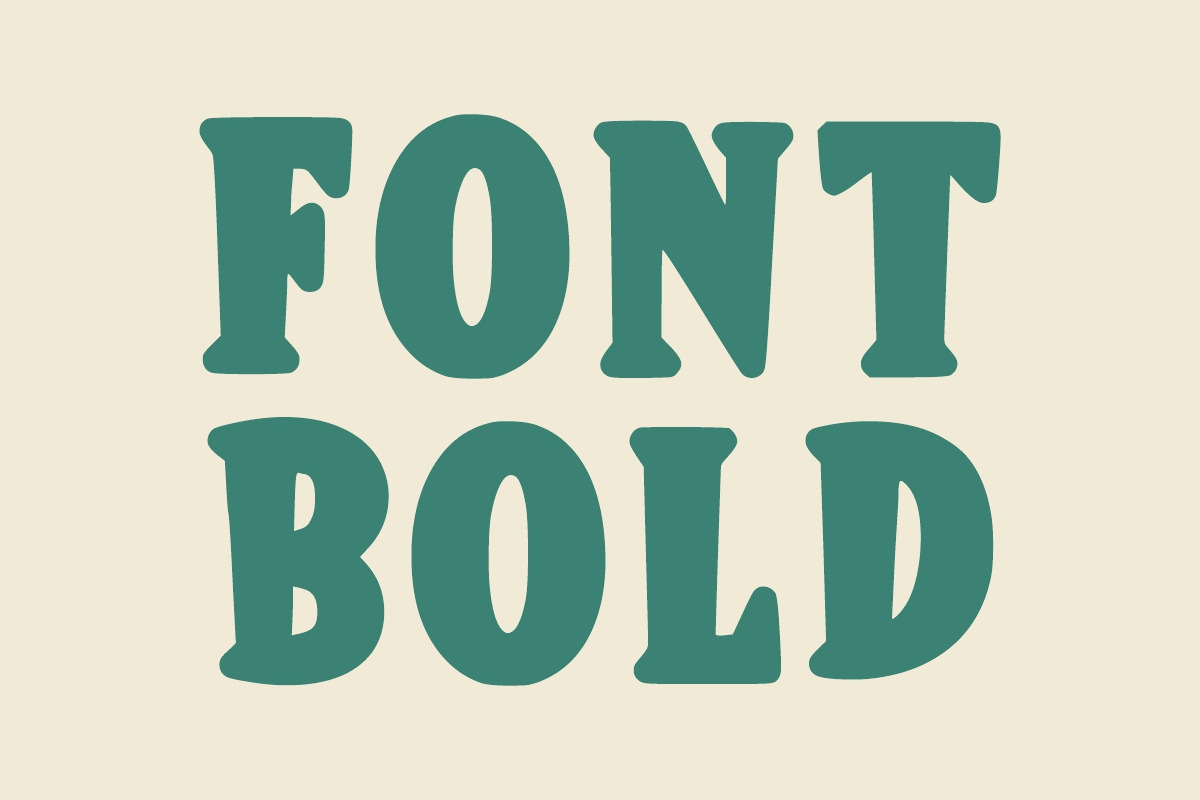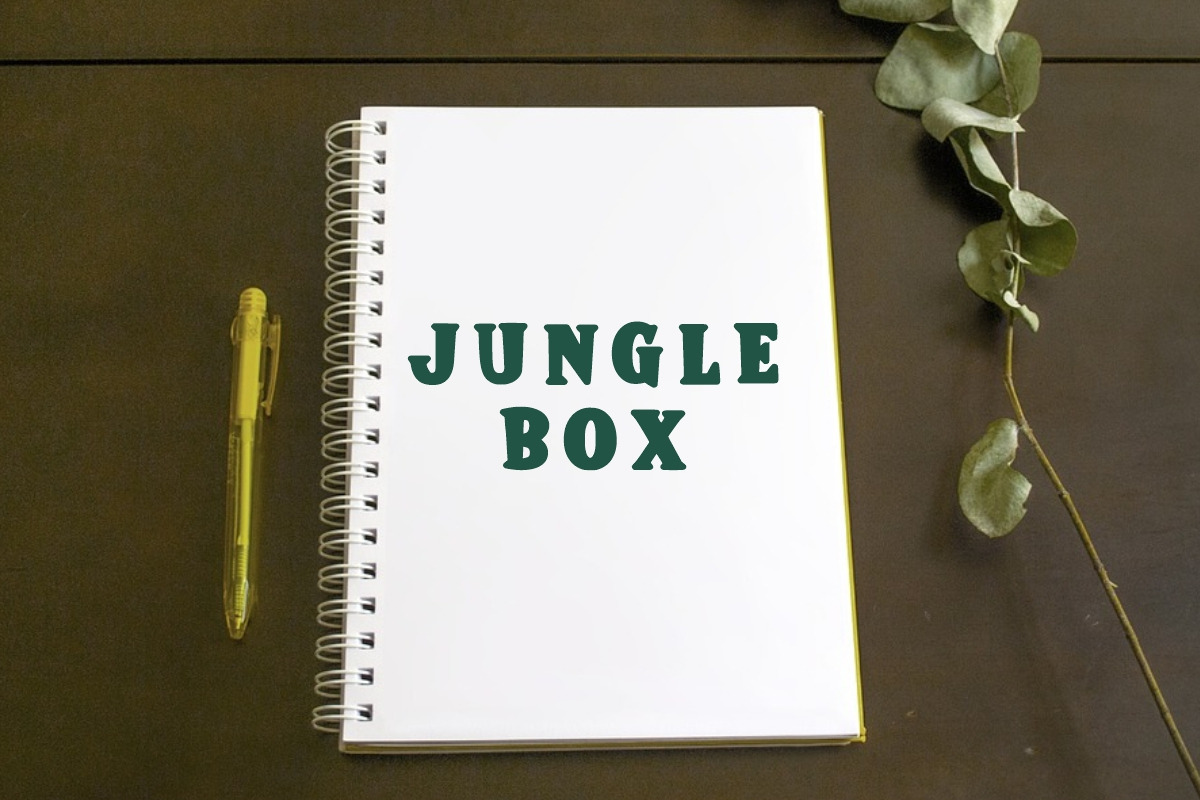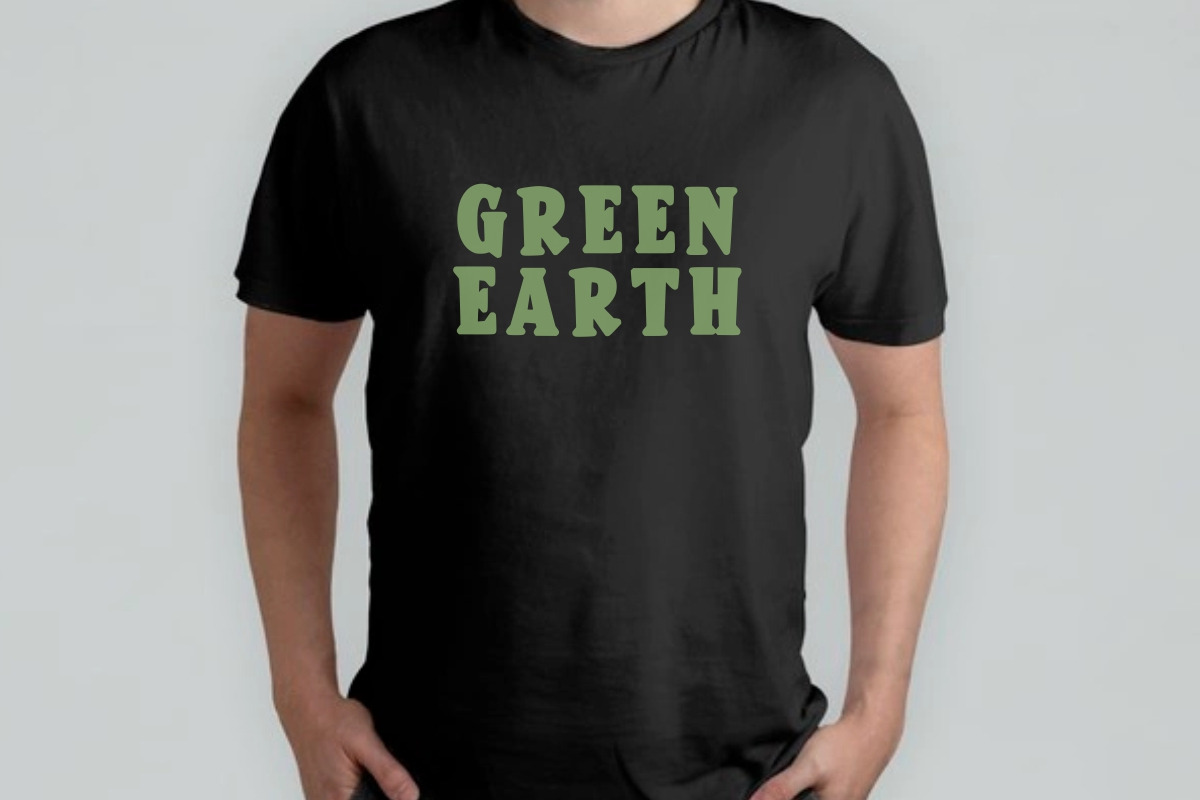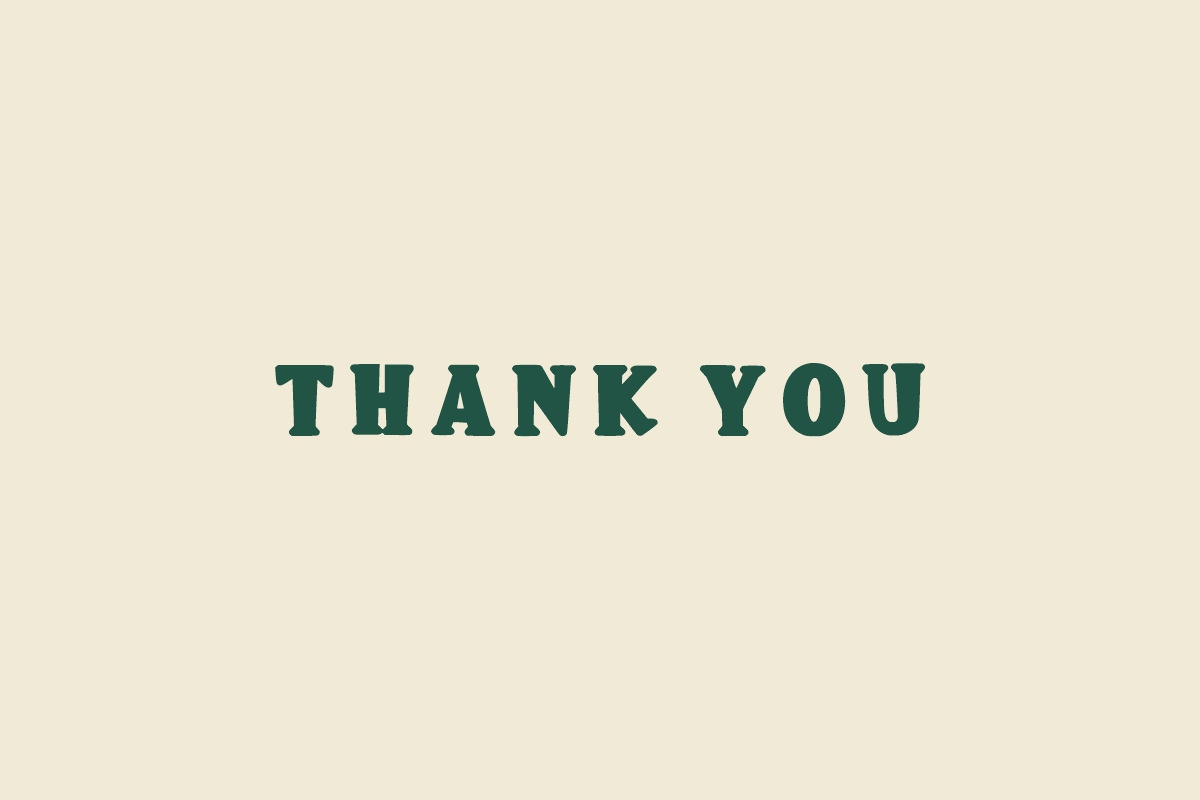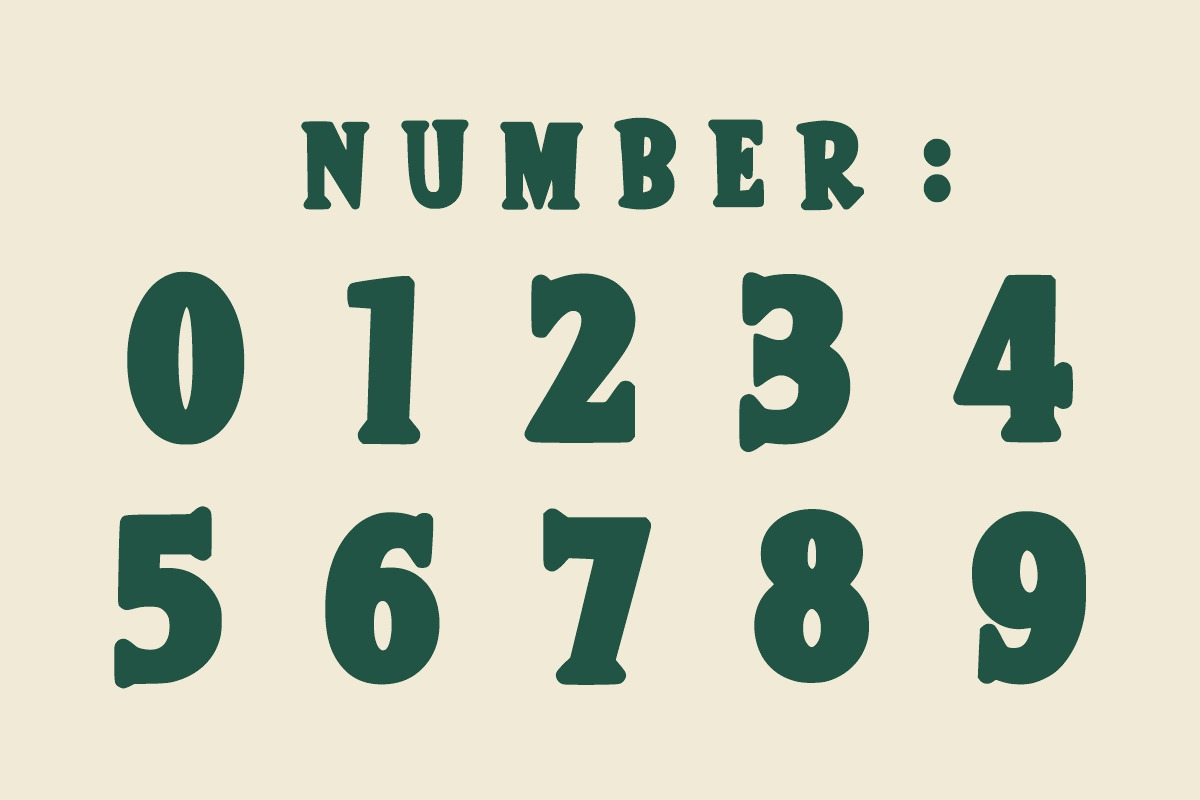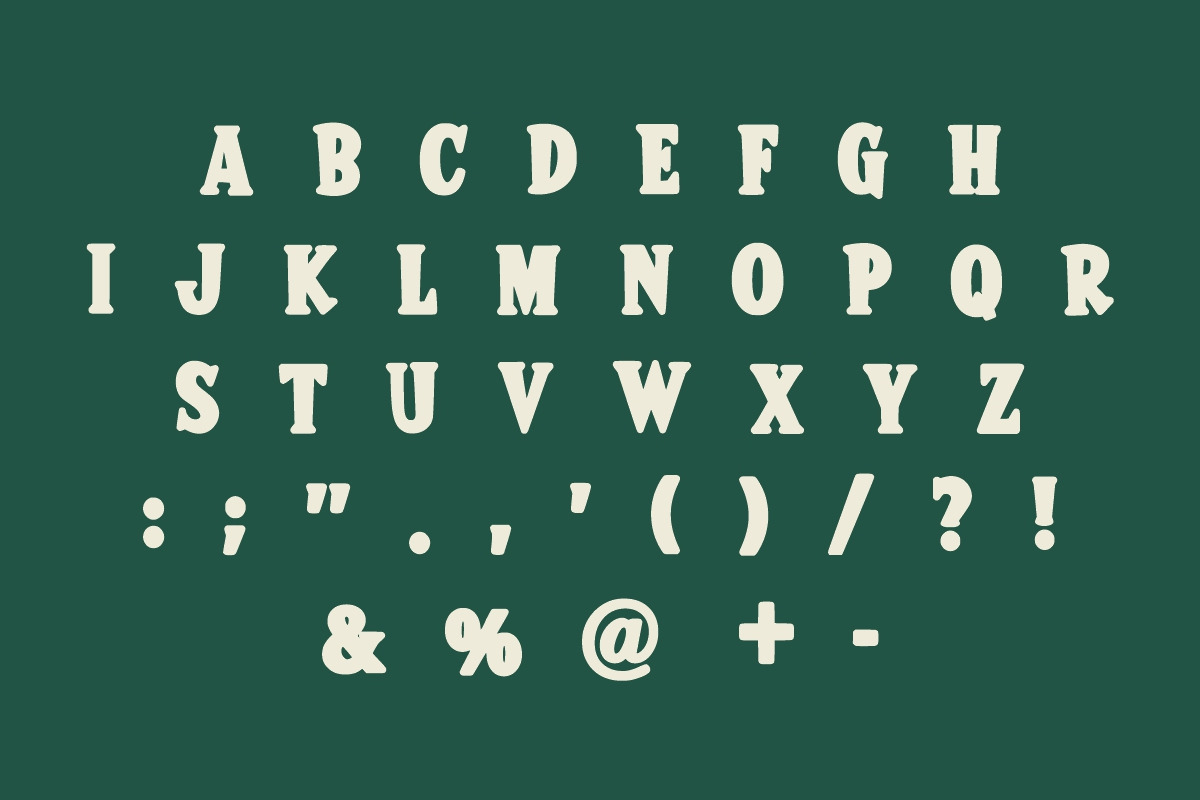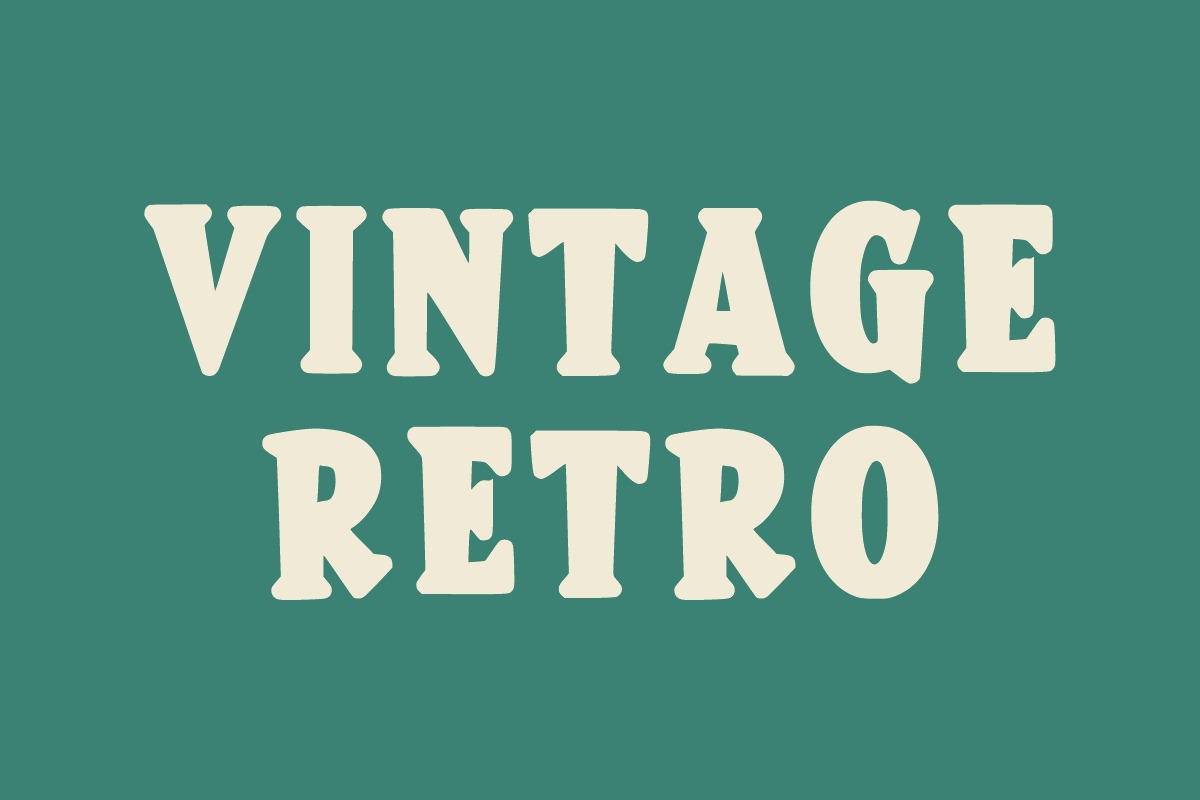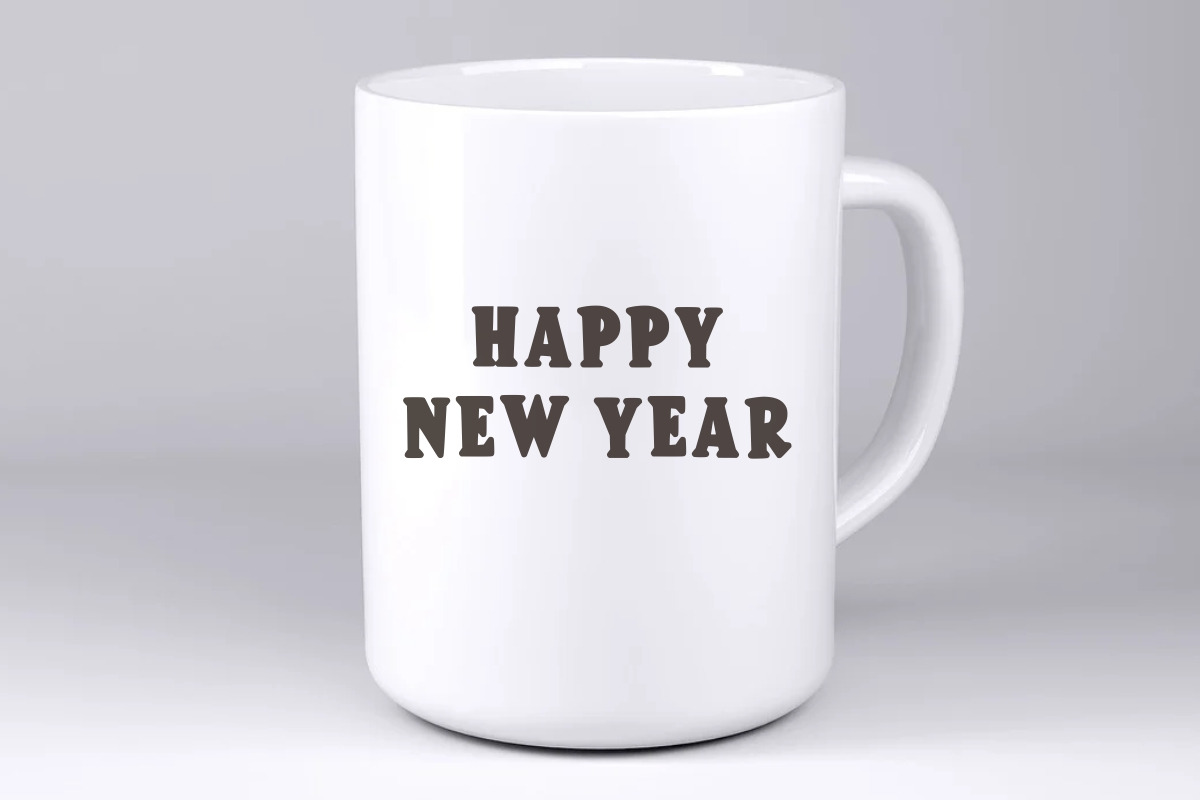
Lolita
Lolita is a stunning retro-styled sans serif font. Its classic & vintage feel will be a great addition to many projects. It is perfect for headlines, sporting events, text effects, posters, logos, or monogrammed designs.